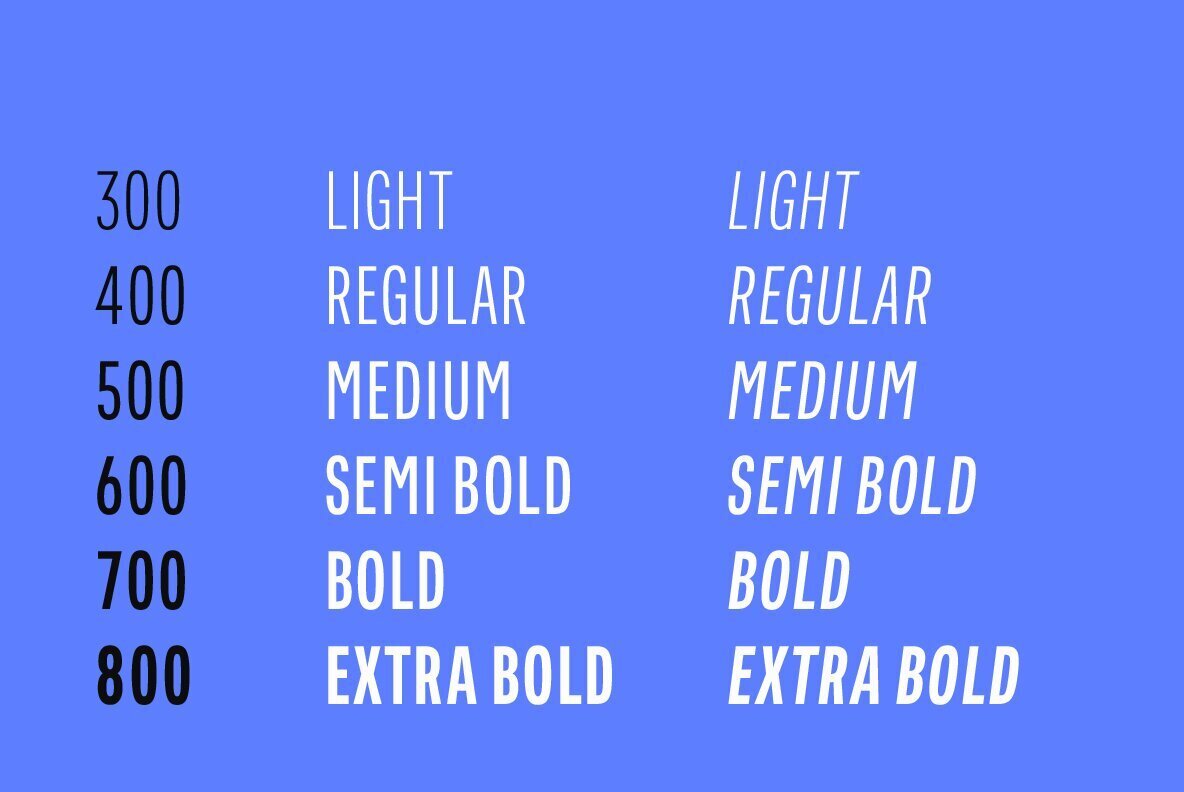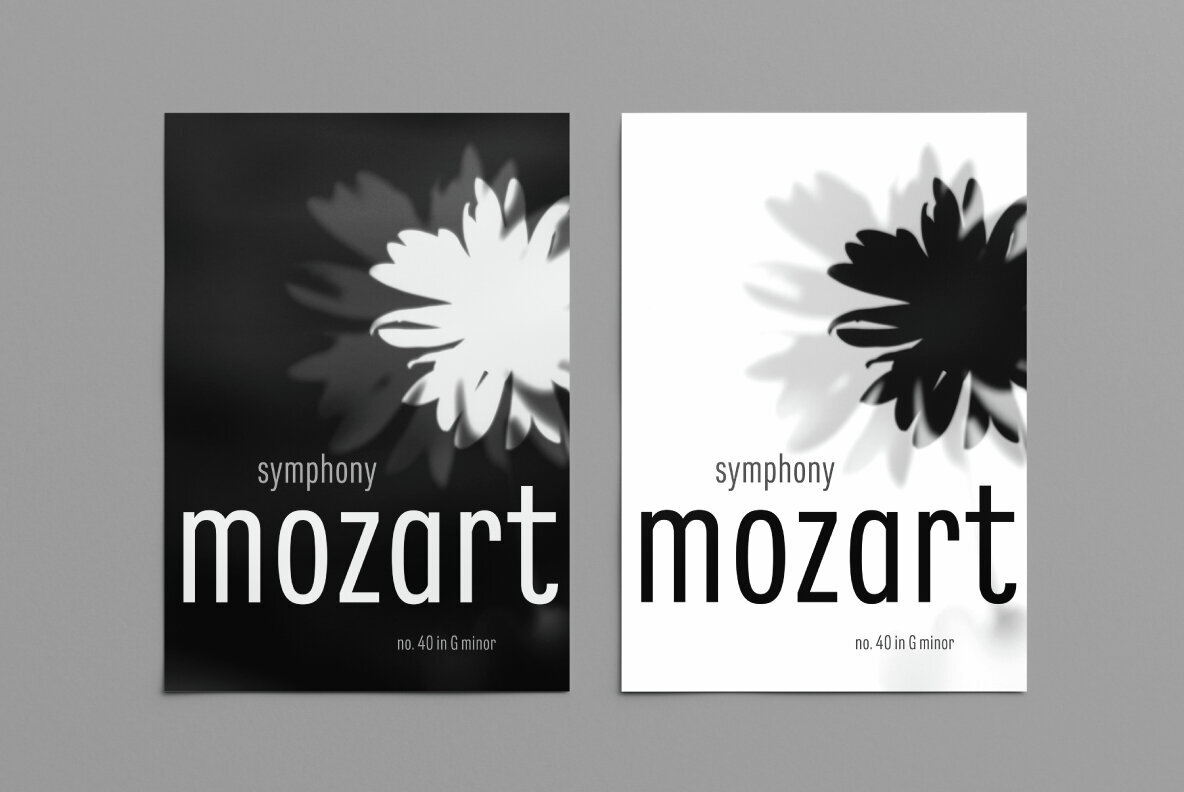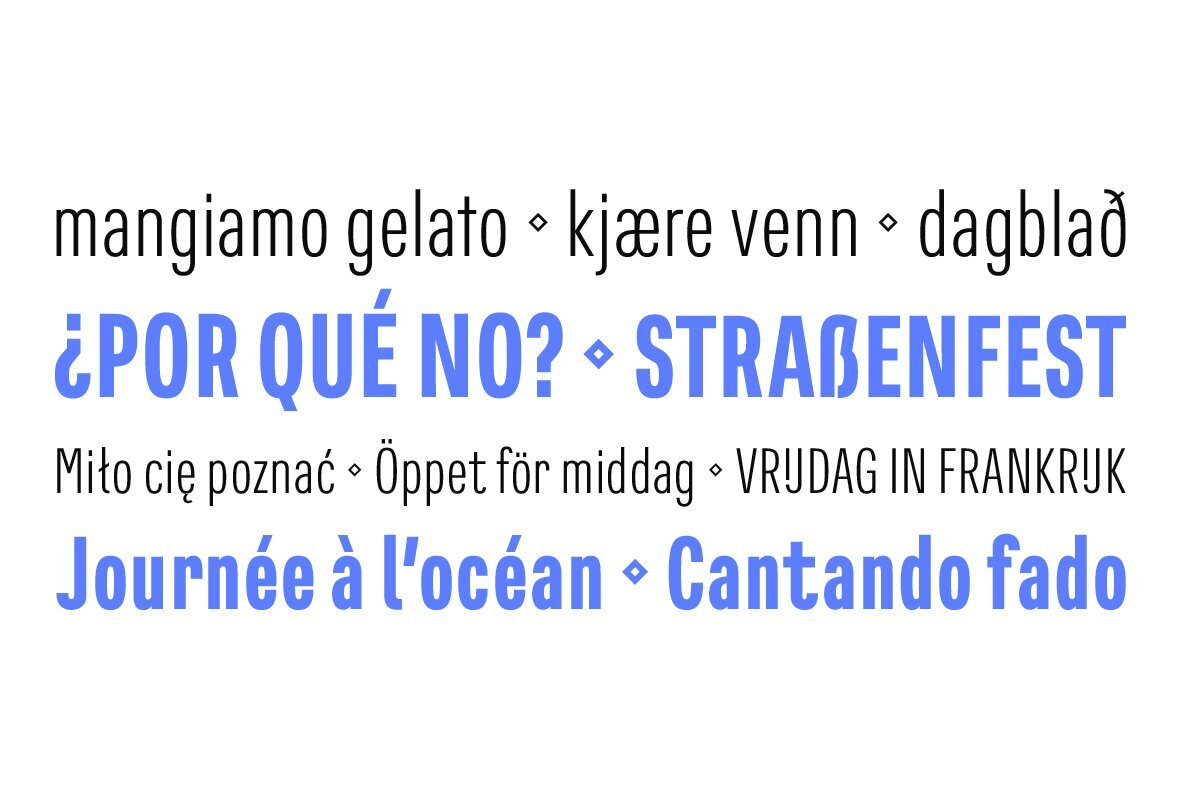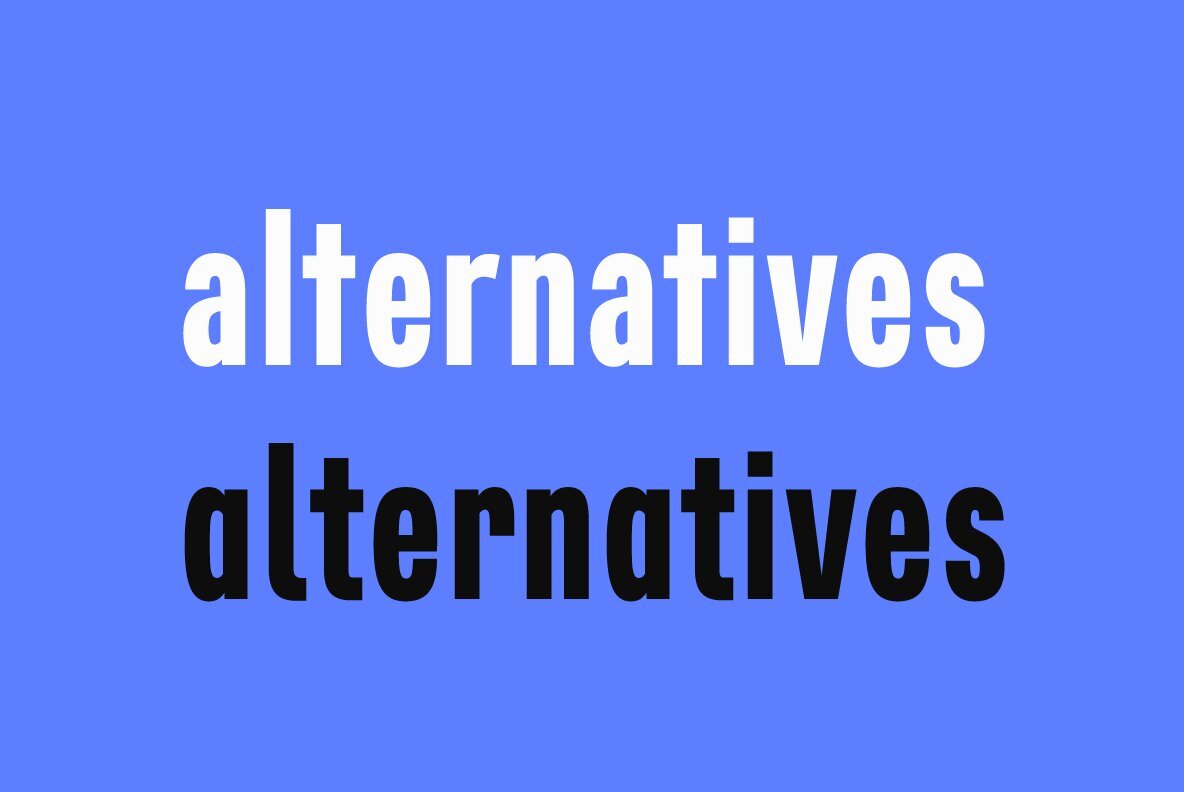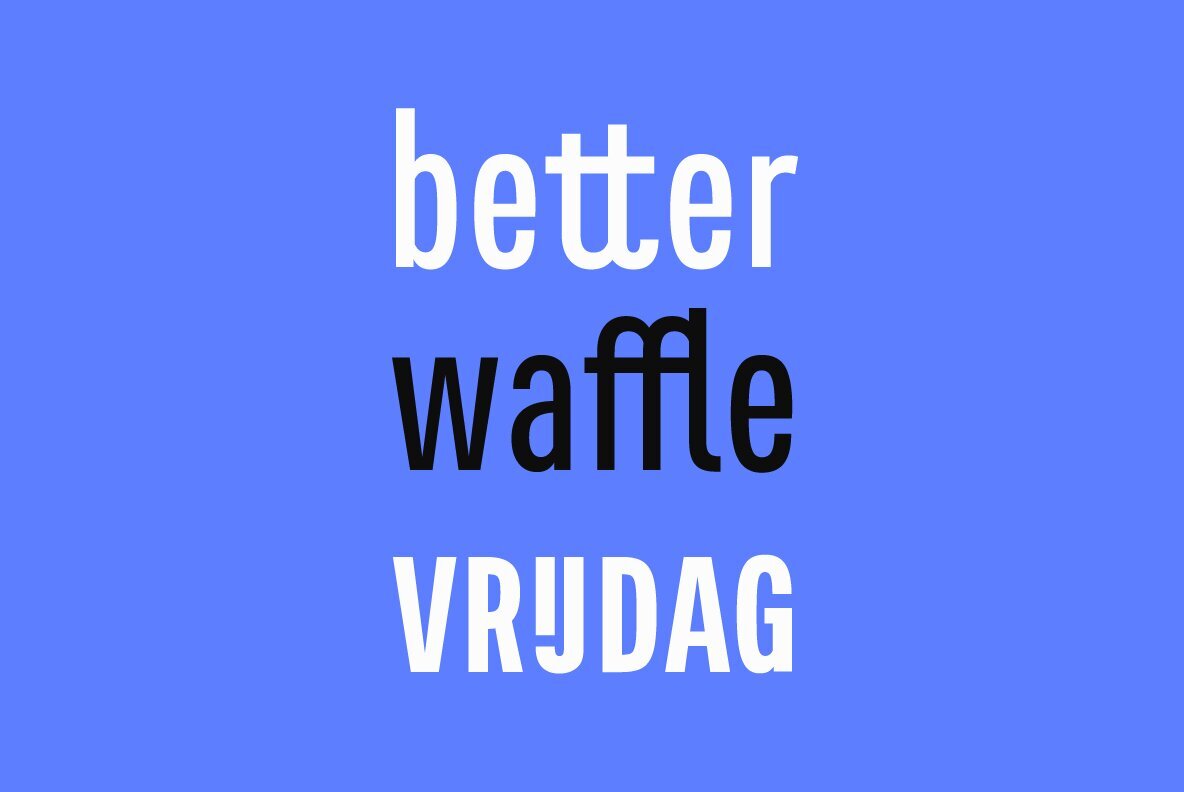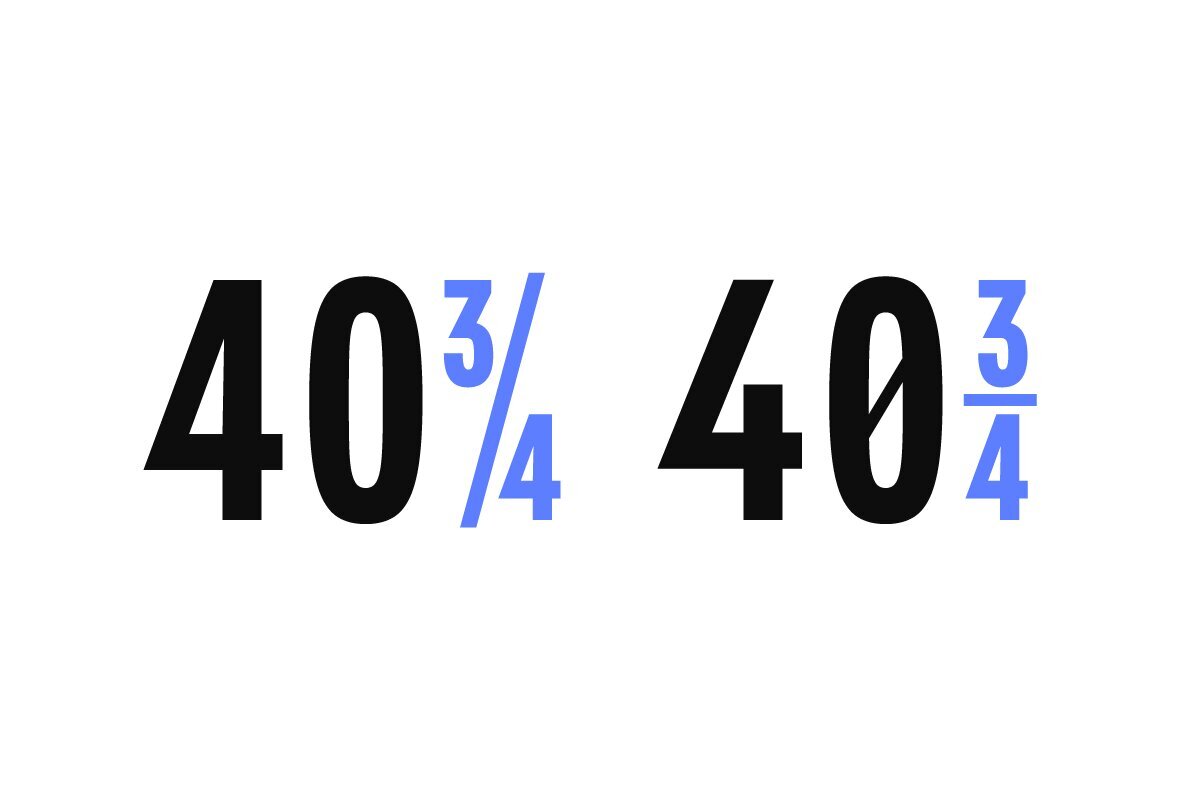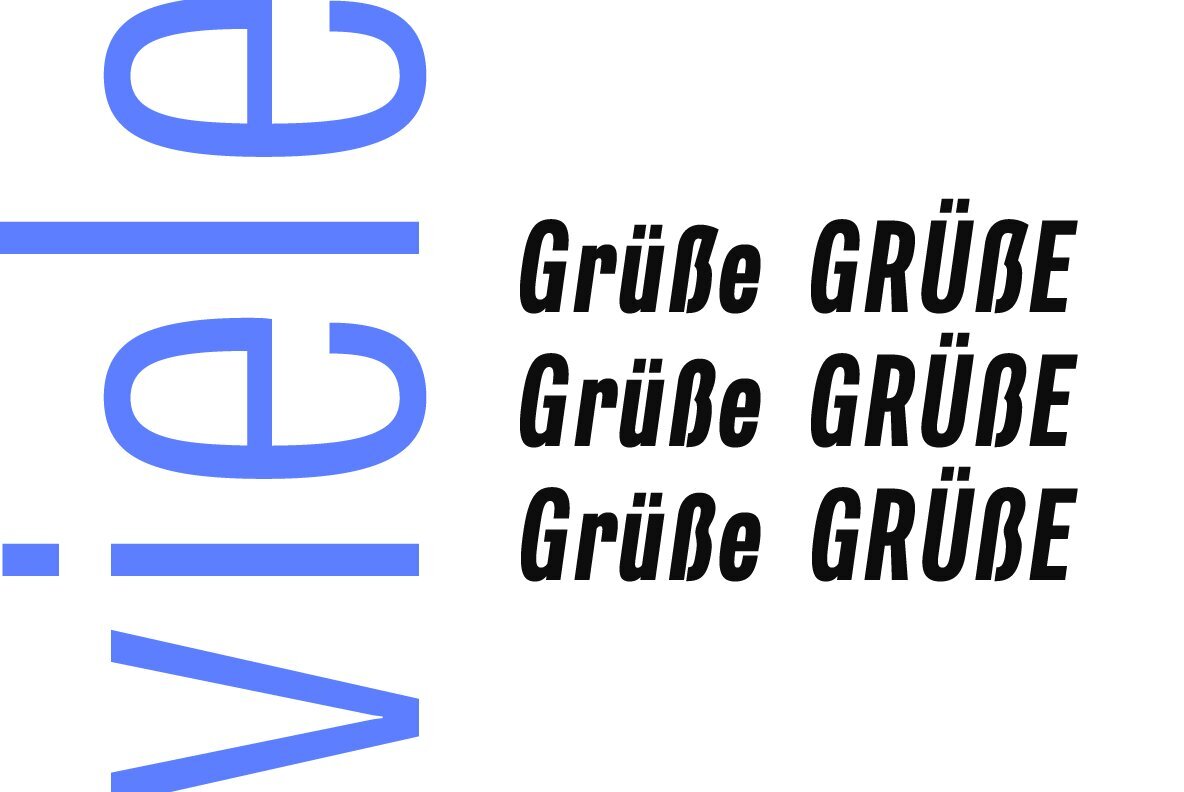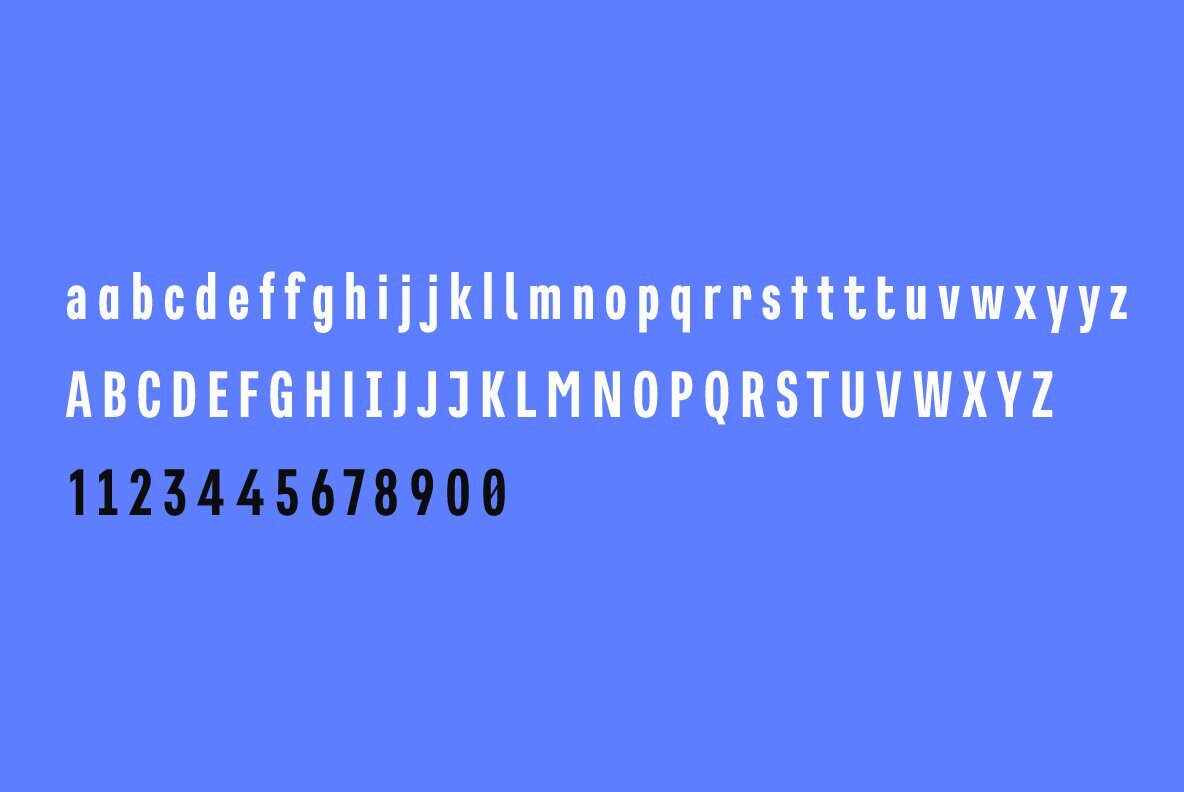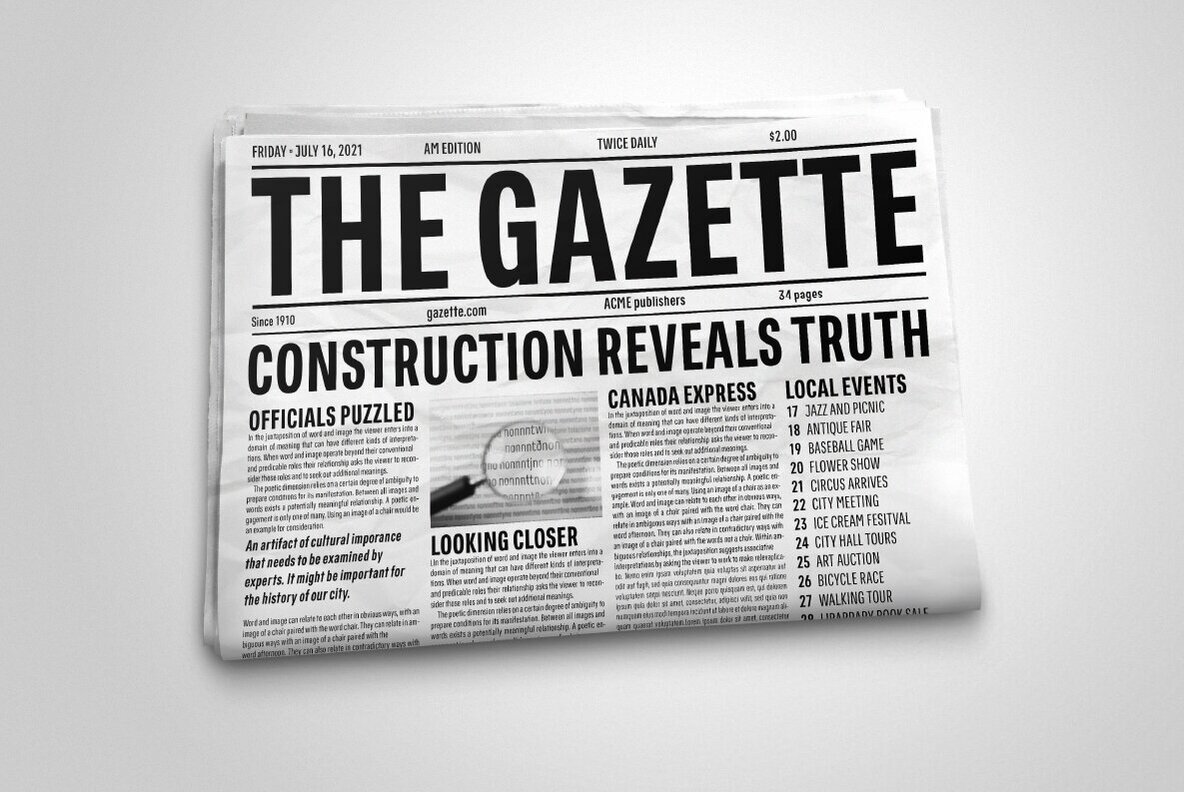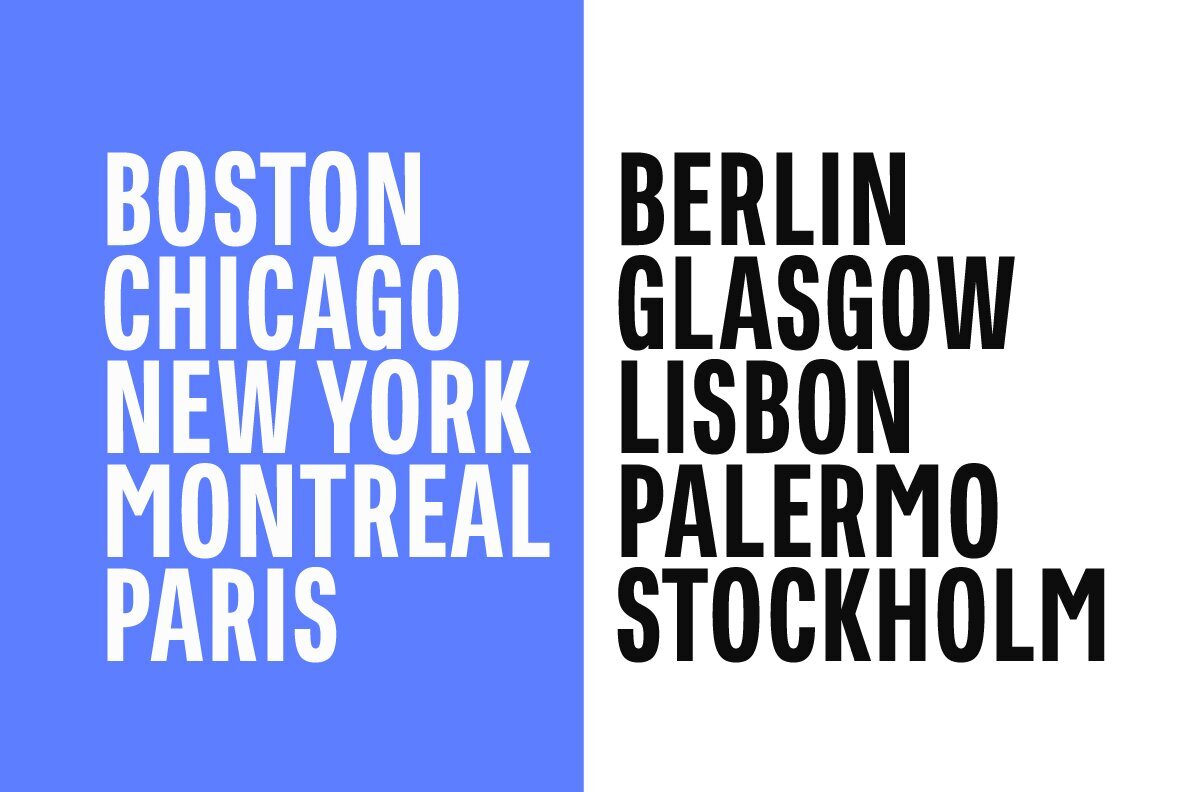
East Variable Font
East Variable
East Variable is a condensed sans serif typeface. It is timeless, but with a subtle nostalgia of vintage jazz albums, film titles, newspapers, and signage. The light weight has excellent legibility at small sizes. The Extra Bold weight will capture attention. East is versatile, but would be a good choice for film titles, labels, publications, or any context where space is limited. It has variable axes of weight and slant. The OpenType features include stylistic sets, a one-story 'a', hooked letters, seriffed uppercase 'I' and '1', a slashed zero, raised colon and punctuation (Spanish), German eszett, ligatures, and vertical fractions.